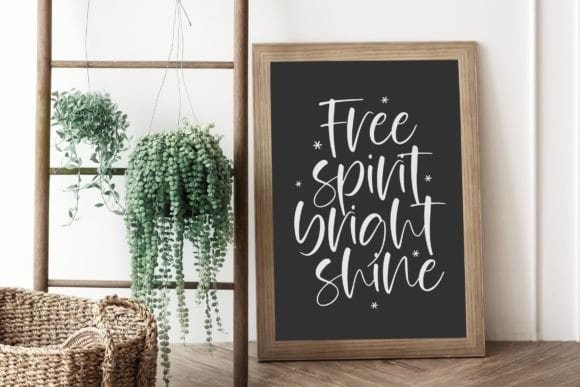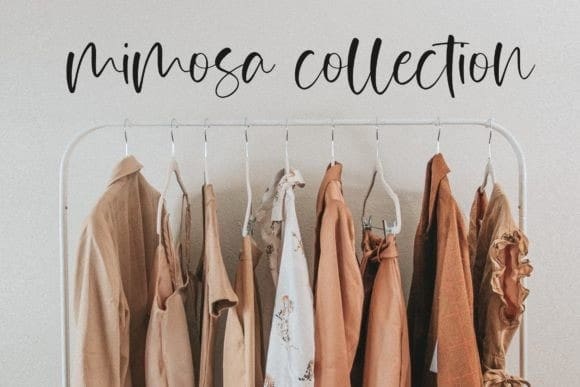
Canfield Script Font
Canfield Script Font is a delicate and elegant handwritten font. Its distinct and well balanced letters make this font a masterpiece. Fall in love with its incredibly versatile style and use it to create spectacular designs!